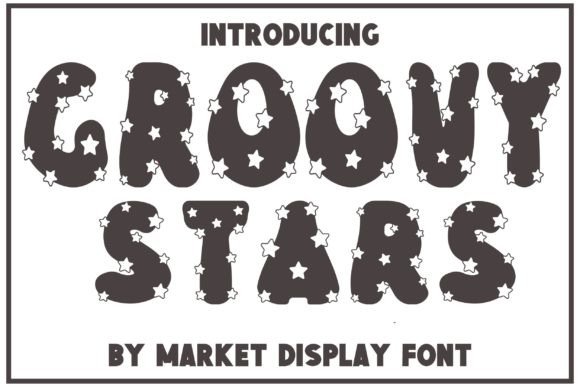
Step into a world of festive cheer and whimsical charm with Groovy Stars Font, the enchanting decorative font that will ignite your Christmas creations with a touch of magic!
Crafted by the visionary hand of Phongsakon Phonkhammak, Groovy Stars is a typographic masterpiece that embodies the spirit of the season. Its playful curves and captivating characters dance across your designs, spreading joy and merriments with every stroke.
With Groovy Stars at your fingertips, the possibilities are limitless. Whether you're crafting heartfelt Christmas cards, designing festive logos, or adding a touch of holiday flair to your social media presence, this font will transform your creations into eye-catching works of art.
Imagine the smiles that will light up faces as your loved ones receive Christmas cards adorned with Groovy Stars' playful greetings. Each letter, a whimsical ornament, will carry your warmest wishes and spread the joy of the season.
For businesses seeking to capture the magic of Christmas, Groovy Stars is the perfect font to elevate your branding and marketing materials. Design eye-catching logos that evoke the festive spirit and create social media posts that will make your followers feel the joy of the season.
The versatility of Groovy Stars extends beyond Christmas. Its playful charm and stylish aesthetics make it an ideal choice for DIY projects, adding a touch of whimsy to everything from invitations to posters and home décor.
With Groovy Stars Font, you'll discover a whole new world of creative possibilities. Its enchanting characters will inspire you to create designs that are both beautiful and memorable.